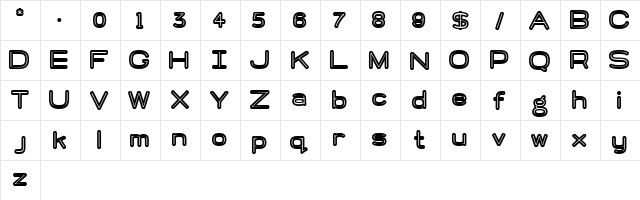
Crew 46 Regular Font Preview
Crew 46 Regular
Crew 46 Regular Font Details
Design Context for Crew 46 Typeface
Crew 46 is a composed and adaptable typeface that performs quietly and consistently across a wide range of design contexts.